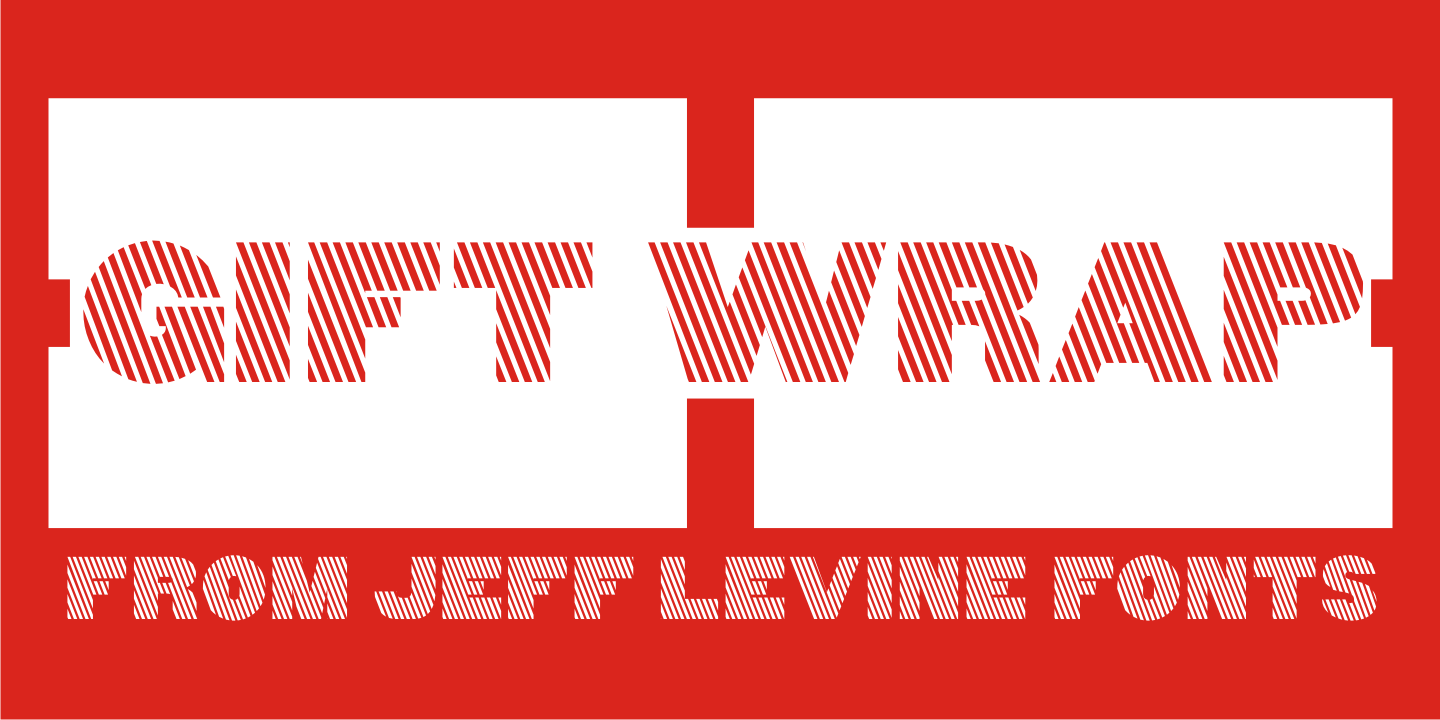
Gift Wrap
Gift Wrap JNL takes a classic wood type display font and cuts it into diagonal striped lines to emulate package wrapping paper. An interesting side effect of the lettering is that at first glance you might perceive the style as being an oblique, but the letters are actually vertical.
This typeface is perfect for holidays, birthdays and special events featuring a festive theme.